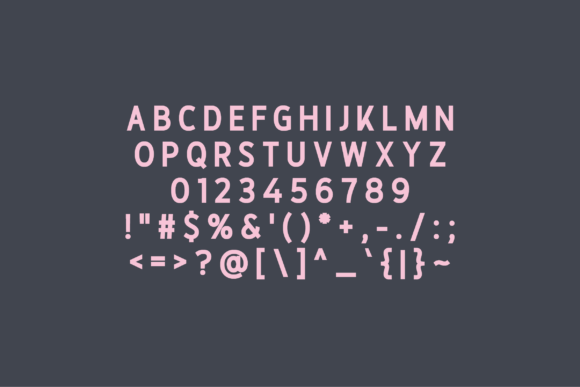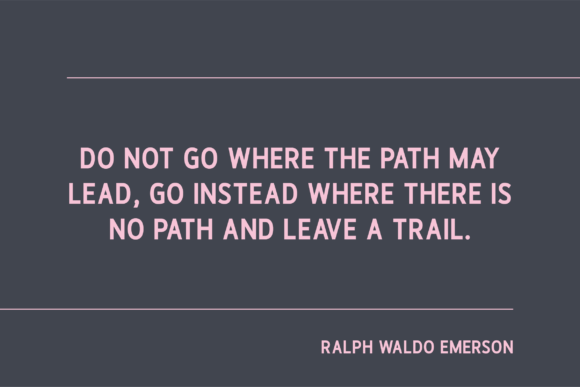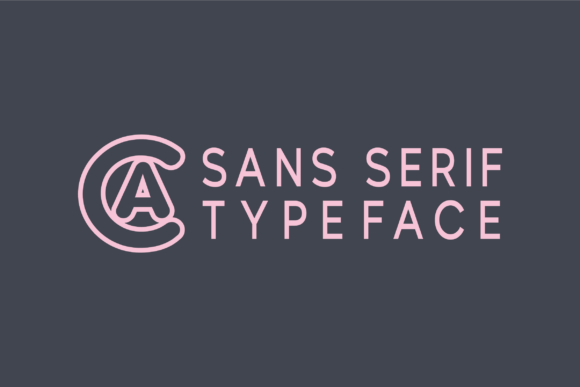
Discover the Perfect Harmony of Form and Function: Breisha Font
Have you ever stared at a blank page, desperately searching for the perfect font to bring your design to life? The frustration of endless scrolling through font libraries can be overwhelming. But what if I told you there’s a typeface that can elevate your work and make the creative process a breeze? Welcome to Breisha Font, a modern, classy sans serif typeface designed to make your designs shine.
Breisha Font is more than just a typeface – it’s a versatile tool for designers, perfect for a wide range of applications from logos to wedding invitations, advertisements, and magazines. Its clean lines, elegant proportions, and extensive character set make it an invaluable asset for any creative project. Whether you’re a seasoned pro or just starting out, Breisha Font is sure to become your go-to companion for crafting stunning designs.
Breisha Font Key Features
- Font Family: Breisha is a sans-serif font family.
- Character Set: Breisha supports a wide range of languages, including Latin, Cyrillic, and Greek alphabets.
- Unique Characteristics: Breisha features a modern, clean design with a subtle rounded edge, making it suitable for a wide range of applications, from digital interfaces to print materials.
Breisha Font Review
I recently had the chance to work with the Breisha font, and I must say it’s a mixed bag. Let’s dive in and see what I liked and disliked about it.
- The Breisha font has a unique, elegant feel to it. It’s perfect for those who want to add a touch of sophistication to their designs.
- The font’s curves and lines are well-balanced, making it easy on the eyes and pleasant to read.
- Breisha is highly legible, even at smaller font sizes, which is a must for any font.
- The font may not be the best choice for those who want a bold, attention-grabbing font. Breisha is more suited for subtle, elegant designs.
- The font’s character set is not as extensive as some other fonts, which may limit its use in certain contexts.
Overall, I think Breisha is a solid choice for designers who want to add a touch of elegance to their work. While it may not be the best fit for every project, it’s a great option for those who want a sophisticated, easy-to-read font. With a bit of creative experimentation, Breisha can be a valuable addition to any designer’s toolkit.
- Use Breisha Font for creative and artistic projects, such as invitations, posters, and social media graphics.
- Combine Breisha Font with other fonts to create a visually appealing contrast.